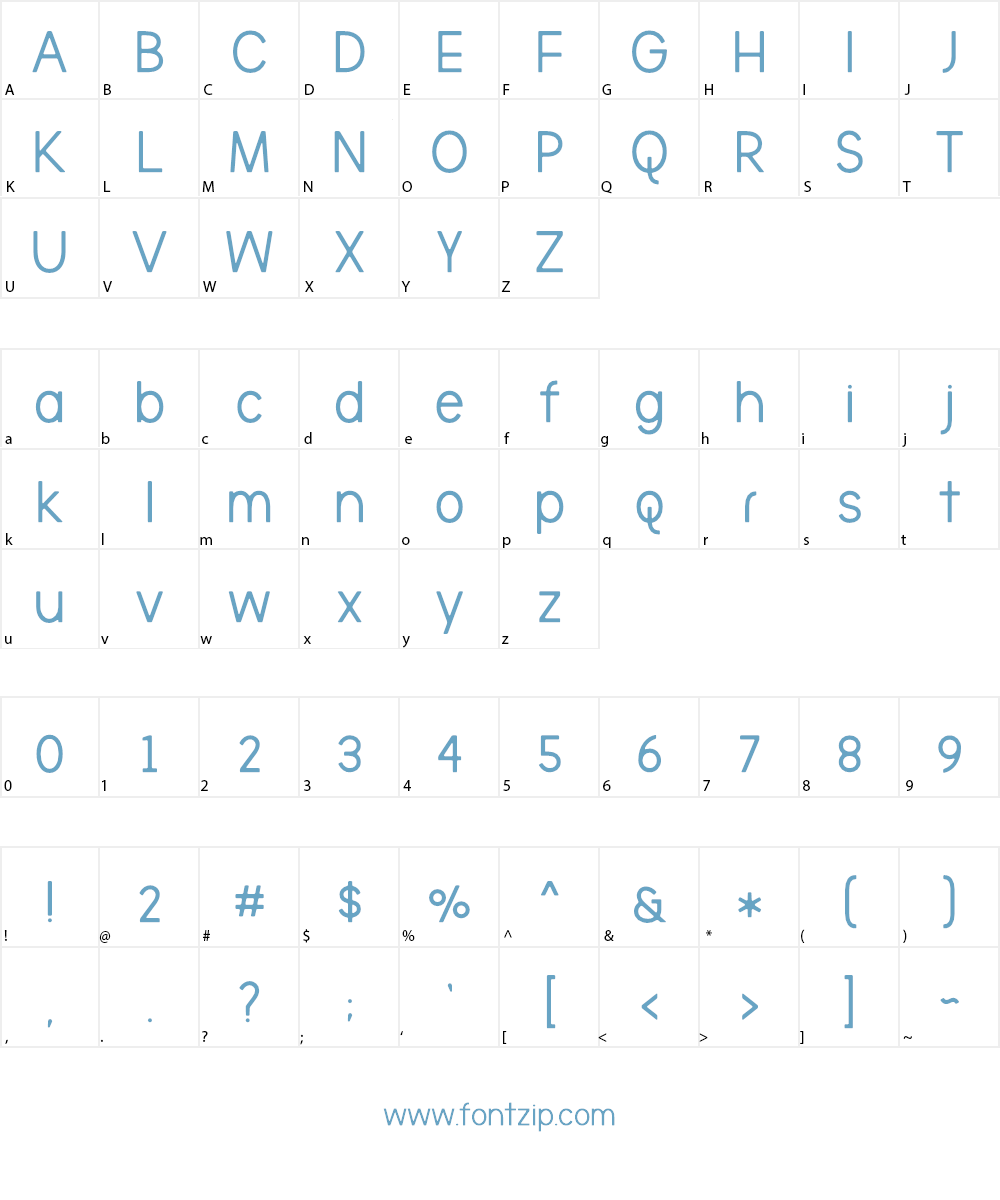
The Brooklyn Smooth Family is a smooth version of The Brooklyn Font Family (http://www.fontspace.com/brittney-murphy-design/the-brooklyn), with rounded ends and corners. Clean, open and versatile, The Brooklyn Smooth pairs great with script fonts, and works well for bylines and text.
The fonts have over 400 characters each, including Cyrillic and lots of accented Latin.
The Brooklyn was created as a cleaner, more modern take on Café & Brewery (http://www.fontspace.com/brittney-murphy-design/café-and-brewery), and includes alternate characters (f,m,t w,W,I) that more closely resemble that font.